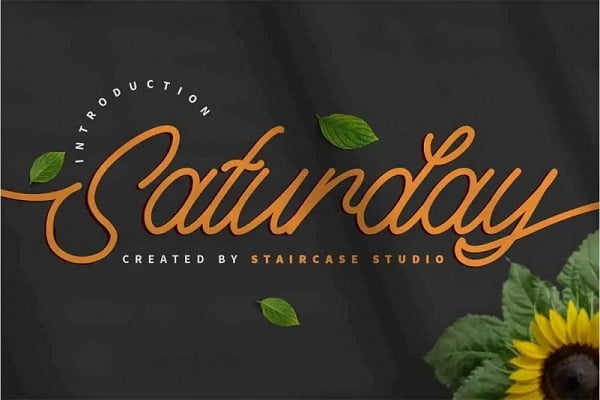
Saturday Monoline Script Font
Saturday – Monoline Script Font, It has a elegant, classy look and cool. It’s perfect for adding a graceful feel to any design project. It’s a great font for fashion, apparel projects, signature, album cover, logo, branding, magazine, social media, & advertisements, but also works great for other projects.